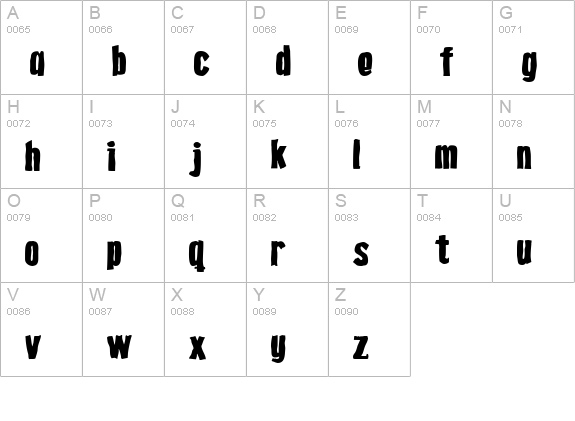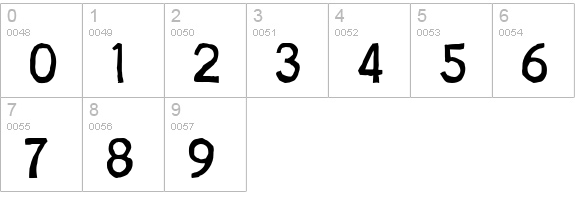
Gasoline font is a modern and stylish typeface that exudes energy and dynamism. With its bold and edgy letterforms, Gasoline font is perfect for creating eye-catching headlines, posters, and logos. This versatile font is ideal for projects that require a contemporary and urban aesthetic. What sets Gasoline font apart is that it is not only visually striking but also free to download. Yes, you read that right - Gasoline font is freely available for download at FontsMarket.com, making it accessible to designers and creatives looking to add a touch of modernity and flair to their projects. Don't miss out on the opportunity to use this unique and dynamic font in your designs today!